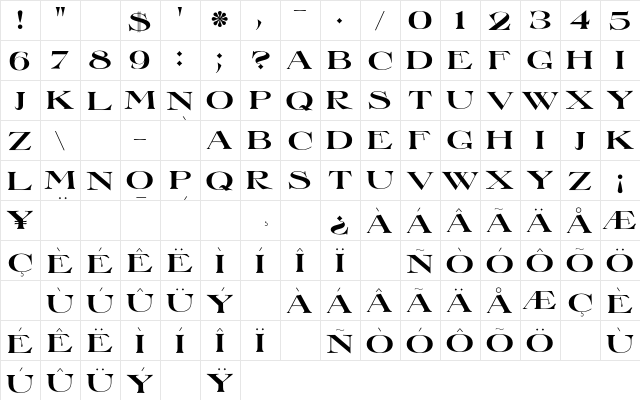
Lake Giles Regular
| Designer | Skyhaven Fonts |
Design Context for Lake Giles Typeface
Lake Giles takes a measured approach to typography — its balanced proportions and neutral character make it a reliable workhorse for both digital and print work.